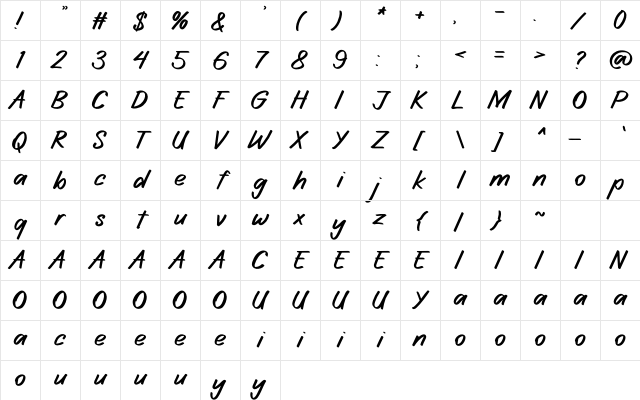
LOOKOUT Regular
Foundry: IDEBARENG
Designer: IDEBARENG TEAM
Design Context for LOOKOUT
LOOKOUT is a composed and adaptable typeface that performs quietly and consistently across a wide range of design contexts.